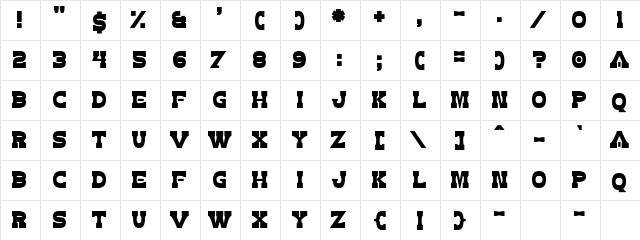
Zdyk Aries Regular
| Designer | Allison James |
Design Context for Zdyk Aries Typeface
Zdyk Aries takes a measured approach to typography — its balanced proportions and neutral character make it a reliable workhorse for both digital and print work.
Pro Tip: Use Zdyk Aries in both headline and body roles to test its range before committing to a single application.